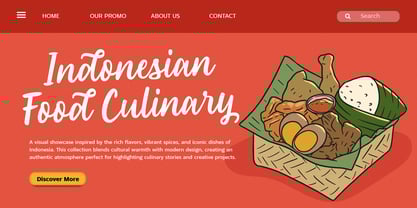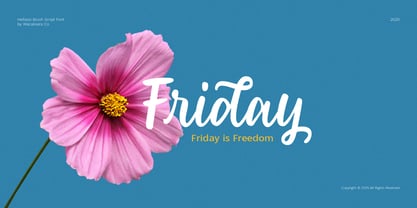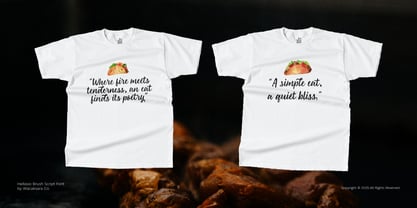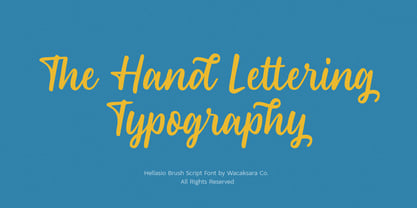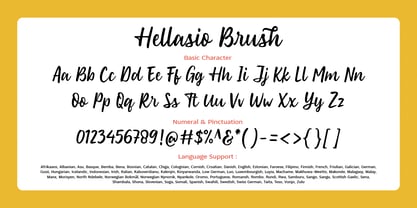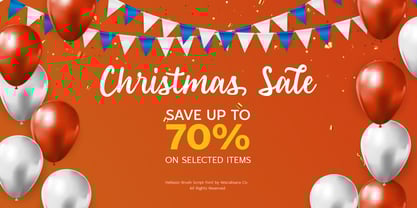
Hellasio
by Wacaksara co
The Hellasio Font Family was designed by Hamam Jauhari and published by Wacaksara co. Hellasio contains 1 styles. More about this family
Hellasio Brush Script Font is a clean, smooth brush script font inspired by modern handwritten brush calligraphy. Its natural flow and gentle curves create a warm, personal touch that feels effortless in any design. Perfect for food posters, branding, apparel, product labels, menu, letterhead, modern logos, packaging, and social media design. This font delivers a stylish handwritten look while remaining clear and highly readable. Every stroke carries a friendly, expressive vibe that instantly enriches your visual message.
Designers: Hamam Jauhari
Foundry: Wacaksara co